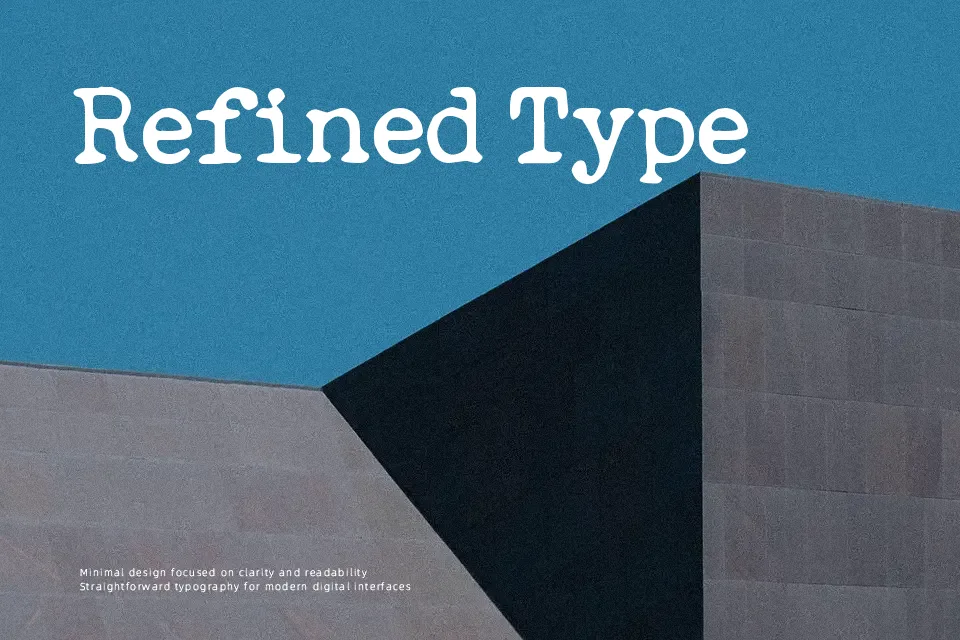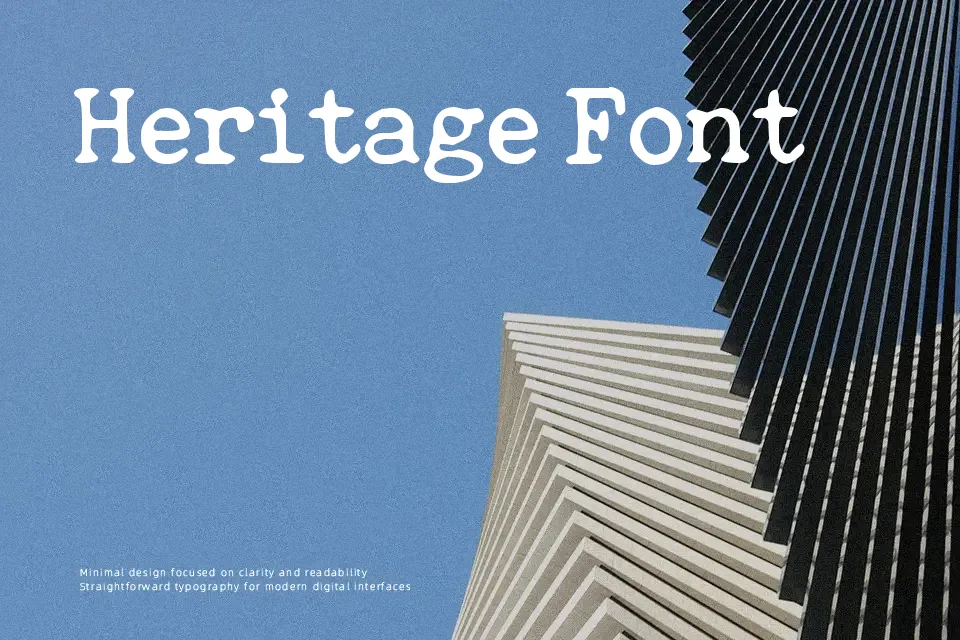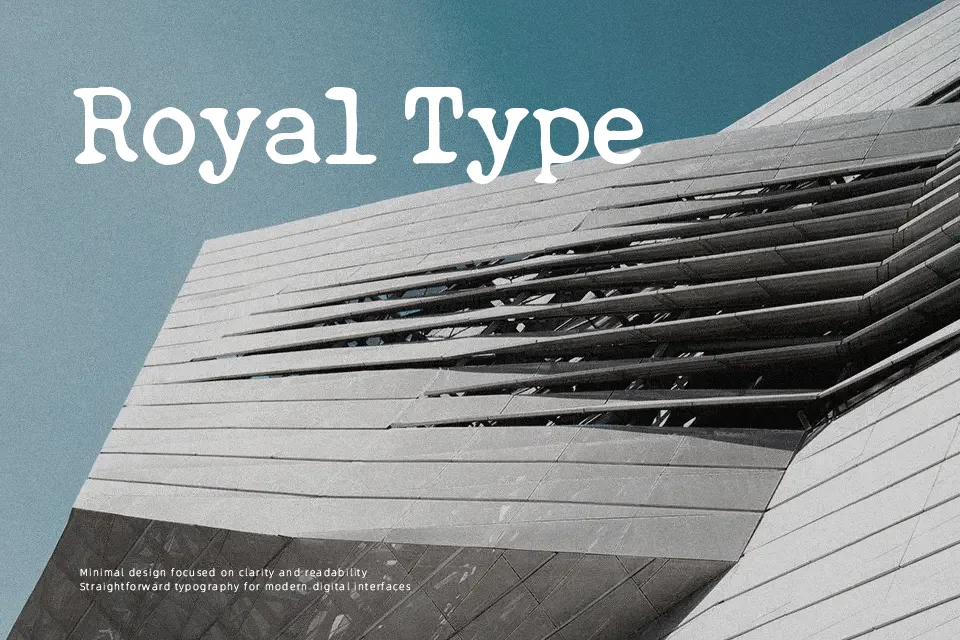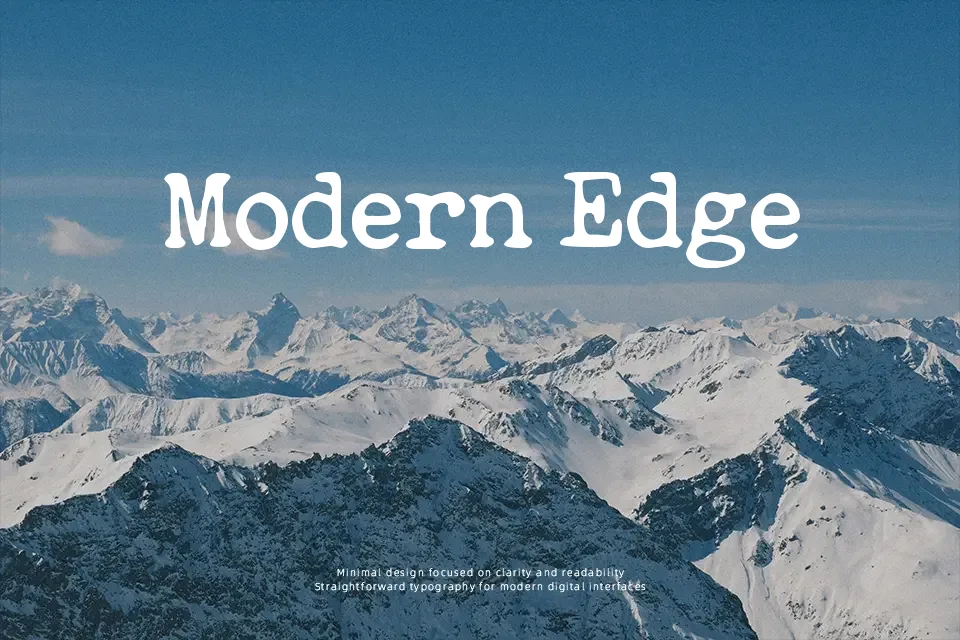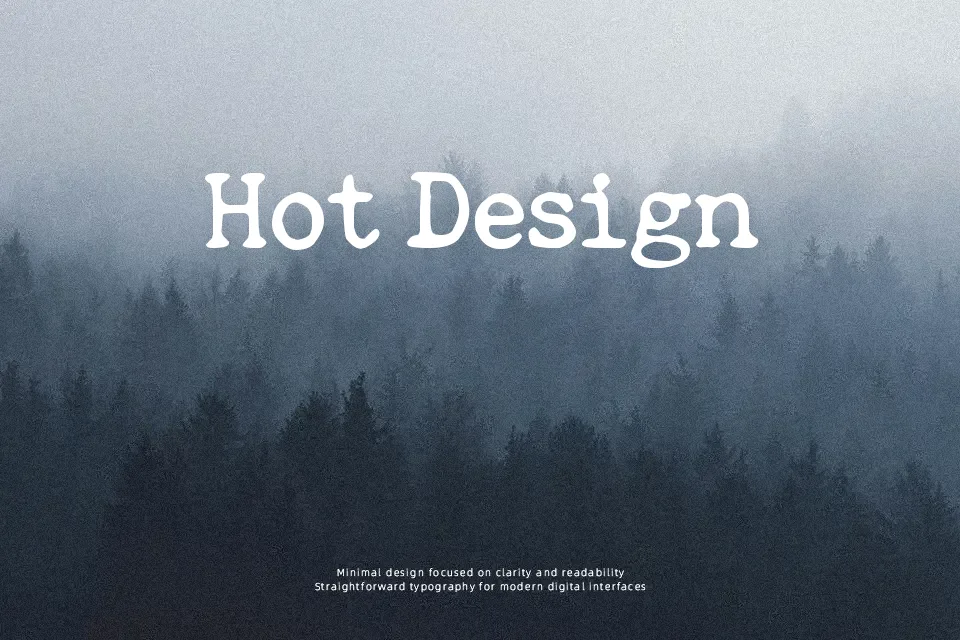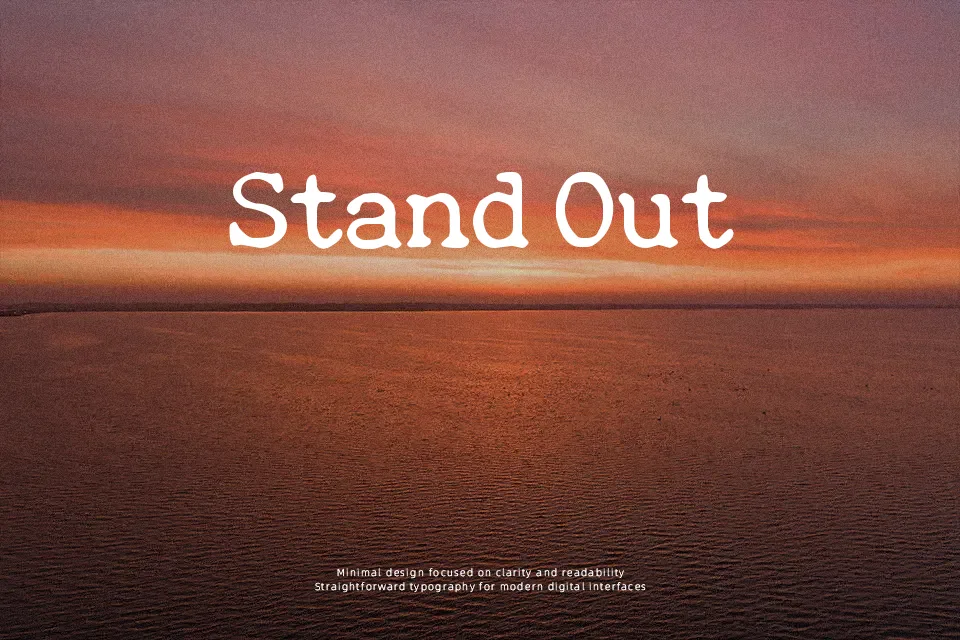
Quiet Evening Font
Designed by Juha Korhonen
Quiet Evening Font captures the mechanical imperfections of vintage typography through its textured strokes and a slightly inconsistent baseline. The letterforms display classic typewriter proportions, featuring distinct serifs and a gently distressed appearance that mimics analog ink transfer. The spacing helps maintain clarity in larger headlines and short editorial blocks, offering a reliable rhythm across the layout. This typeface excels when applied to retro packaging, historical fiction covers, and thematic restaurant menus that require an aged aesthetic. However, the irregular textures reduce continuous reading comfort, making these letterforms less suitable for dense body copy or small technical manuals.
Best For: vintage product packaging, historical fiction book covers, thematic restaurant menus
Not Ideal For: dense editorial layouts, small interface labels, technical manuals
Perfect for editorial, packaging, and poster, with a grunge and monospace style.